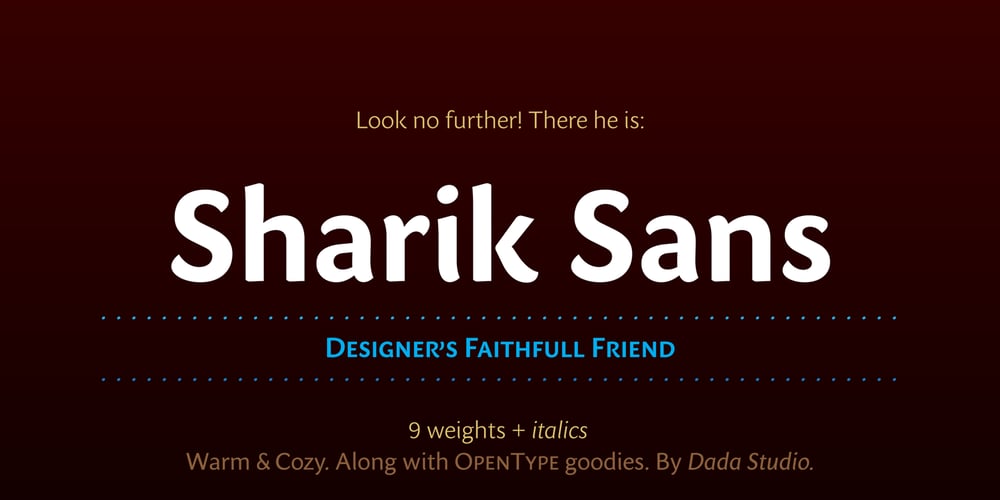
Sharik Sans
Sharik Sans font
Sharik Sans Font Family was designed by Michał Jarociński and published by Dada Studio. Sharik Sans contains 18 styles and family package options. Sharik Sans (named after the brave and smart dog-hero from my favorite TV series) has a warm and gentle personality. It does not shout; it does not stand out. Sharik serves his master in everyday work. Although it is a sans serif, you can feel a calligrapher’s touch in its subtle details and endings. They shine out, especially at display sizes. The family consists of nine weights plus matching italics. It meets most of the needs designers deal with on a daily basis, including web usage. It is stuffed up with various OpenType features such as small capitals, a wide set of numerals, fractions, ordinals, alternates, and, of course, ligatures. And it perfectly harmonises with my other serif-like typeface family Clavo. NB: This font is NOT style linked by weight!